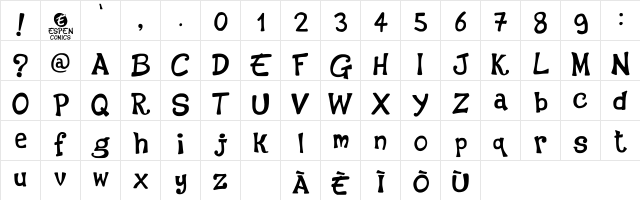
Espen Comics Regular
Design Context for Espen Comics Typeface
Espen Comics has an approachable, lighthearted character — its loose, expressive forms are well-suited to children's content, casual branding, and fun-first design.
Font Pairing: Pairs well with a rounded or humanist sans for body copy, maintaining the friendly tone without relying on Espen Comics to carry extended reading.
Pro Tip: Use Espen Comics at larger display sizes where its expressive character can land. Pair with a clean, simple sans for body copy to maintain readability.